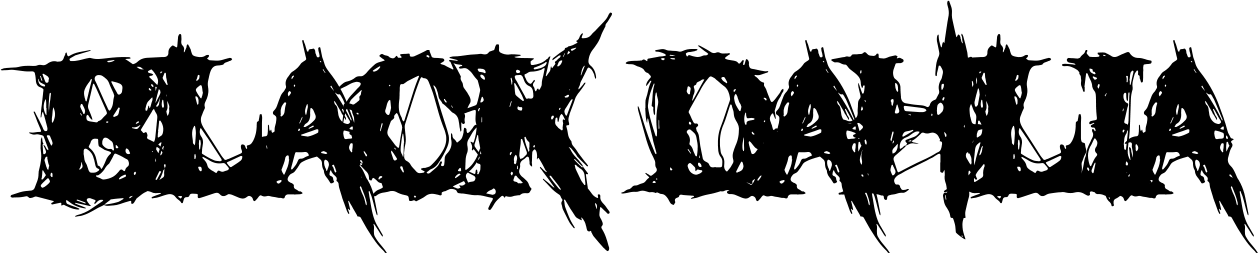
Black Dahlia Font
Black Dahlia is a metal font that may make your texts illegible due to its weird design. Its black and brutal letterform with sharp edgy design can create violence and horror feeling in the heart of the content. Dashingl…
Black Dahlia is a metal font that may make your texts illegible due to its weird design. Its black and brutal letterform with sharp edgy design can create violence and horror feeling in the heart of the content.
Dashingly use this aggressive bold font to remain the satisfactory result of designing headers, posters, cover music, album covers, brands, T-shirts, and more with its capital letters and bring a fury sense to every observer.